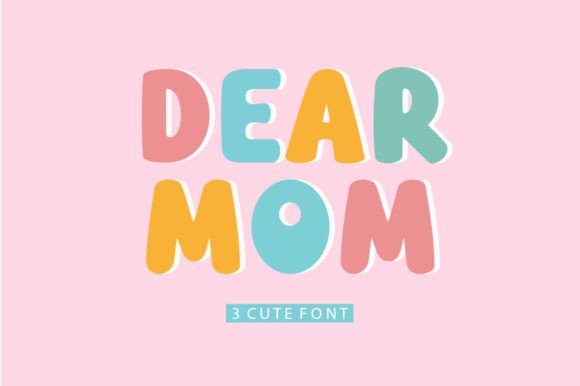
Dear Mom Font: The Epitome of Elegance and Sophistication
The world of typography is vast and diverse, with numerous fonts catering to various tastes and preferences. Among these, the Dear Mom font stands out for its unique blend of elegance, modernity, and femininity. This typeface has garnered attention for its sensual, glamorous, and simple design, making it highly versatile for a wide range of applications. In this article, we’ll delve into the characteristics of the Dear Mom font, its suitability for formal and creative projects, and why it has become a favorite among designers and typography enthusiasts.
Key Features of Dear Mom Font
- Unique and Elegant Design: The Dear Mom font boasts a distinctive and sophisticated design that sets it apart from more traditional typefaces. Its elegant curves and lines make it perfect for projects that require a touch of class and refinement.
- Modern and Feminine: With its modern aesthetic and feminine charm, the Dear Mom font is ideal for designs aimed at a female audience or those that require a soft, approachable feel.
- Sensual and Glamorous: The font’s sensual and glamorous appeal makes it suitable for luxury brands, fashion magazines, and high-end product packaging.
- Simple and Easy to Read: Despite its elegant and glamorous appearance, the Dear Mom font remains simple and highly legible, making it versatile for use in various media, from digital platforms to print materials.
Ideal Applications for Dear Mom Font
The Dear Mom font’s classic style and versatile nature make it suitable for a myriad of applications. Here are some areas where this typeface truly shines:
- Invitations and Wedding Cards: The font’s elegance and romance make it perfect for wedding invitations, save-the-date cards, and other formal event announcements.
- Labels and Packaging: For product packaging, labels, and branding materials, the Dear Mom font adds a touch of sophistication and luxury, making products stand out on store shelves.
- Menus and Restaurant Branding: Restaurants and cafes can benefit from using the Dear Mom font in their menus, signage, and branding to convey a sense of class and quality.
- Logos and Brand Identity: The unique and memorable design of the Dear Mom font makes it an excellent choice for logos, particularly for brands in the fashion, beauty, and lifestyle sectors.
- Fashion and Makeup: In the realm of fashion and makeup, the Dear Mom font can be used in magazines, blogs, and advertising materials to evoke a sense of style and glamour.
- Stationery and Letterpress: For personal or business stationery, letterpress projects, and greeting cards, this font provides a classic yet contemporary look.
- Romantic Novels and Magazines: Authors and publishers of romantic novels and magazines will find the Dear Mom font perfect for cover designs and interior typography, enhancing the emotional appeal of their content.
- Books and Greeting/Wedding Cards: Its readability and aesthetic appeal make it suitable for book titles, especially in genres that benefit from a touch of elegance. Additionally, it’s a popular choice for greeting cards and wedding cards.
The Significance of Dear Mom Font in Typography
In the world of typography, fonts like Dear Mom play a crucial role in conveying the tone and personality of a brand, product, or publication. The Dear Mom font, with its distinctive blend of elegance, modernity, and femininity, fills a specific niche that is both unique and highly sought after.
The use of the Dear Mom font can significantly enhance the visual appeal of any project, making it more engaging and memorable for the audience. Its versatility allows designers to experiment with various contexts, from digital media to print, without compromising on style or legibility.
The Dear Mom font is a remarkable typeface that offers a perfect blend of elegance, modernity, and readability. Its wide range of applications, from formal invitations and luxury packaging to romantic novels and fashion branding, underscores its versatility and appeal. Whether you’re a designer looking for a sophisticated font for your next project or a business owner seeking to elevate your brand’s visual identity, the Dear Mom font is an excellent choice.
Its ability to convey a sense of glamour, sophistication, and femininity, combined with its simplicity and legibility, makes it a valuable tool in the world of design and typography. As we continue to witness the evolution of design trends, fonts like Dear Mom will undoubtedly remain at the forefront, cherished for their beauty and functionality.